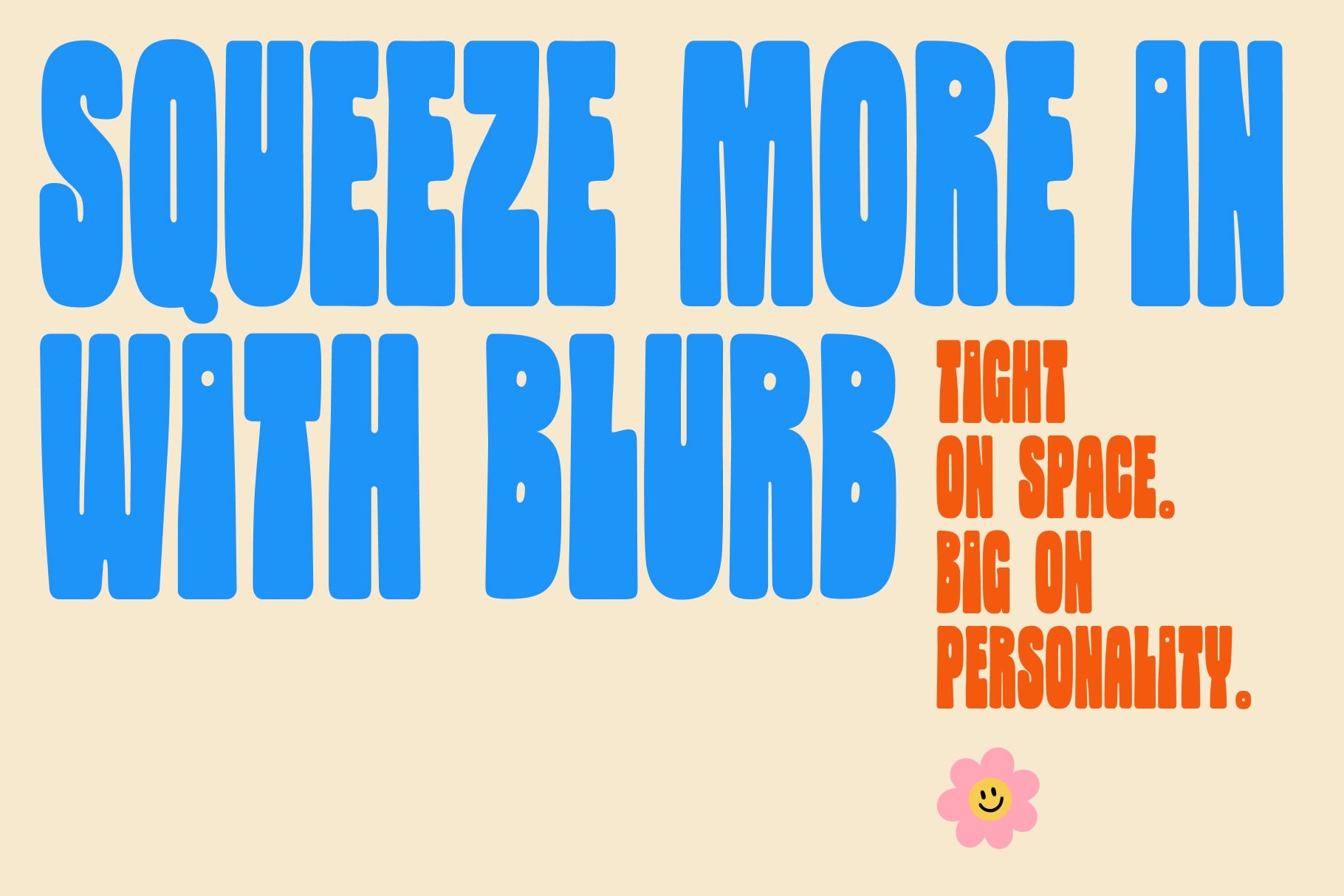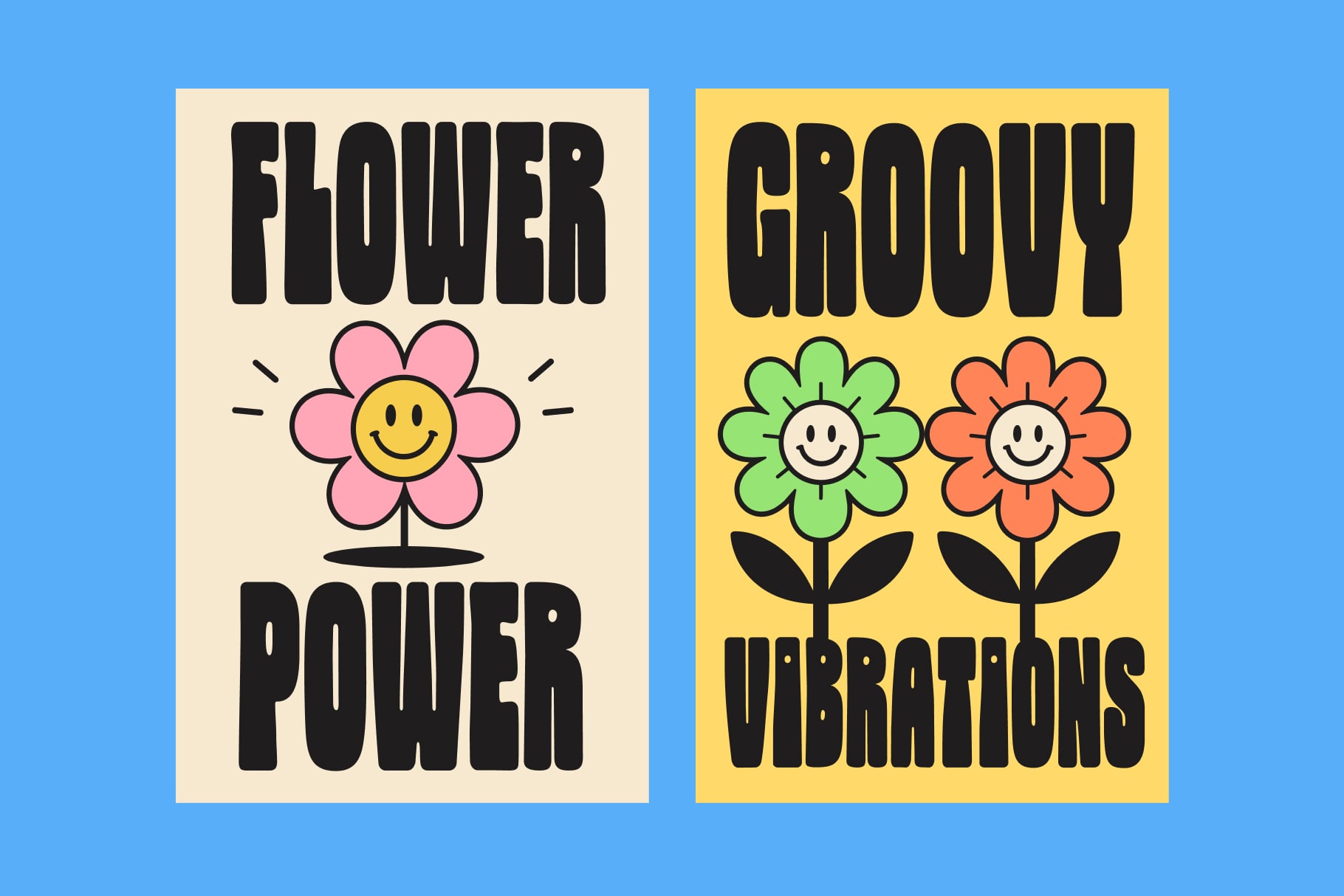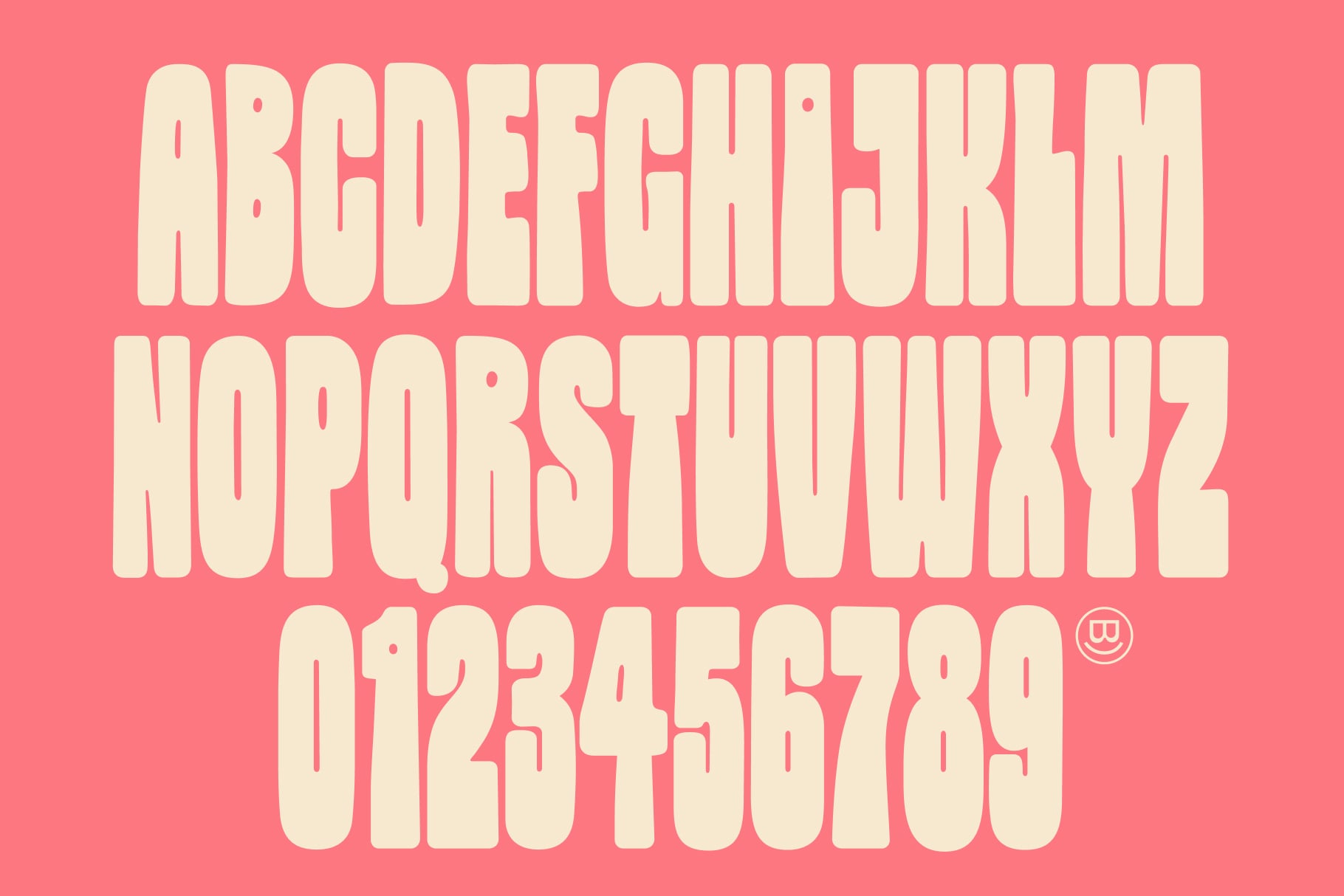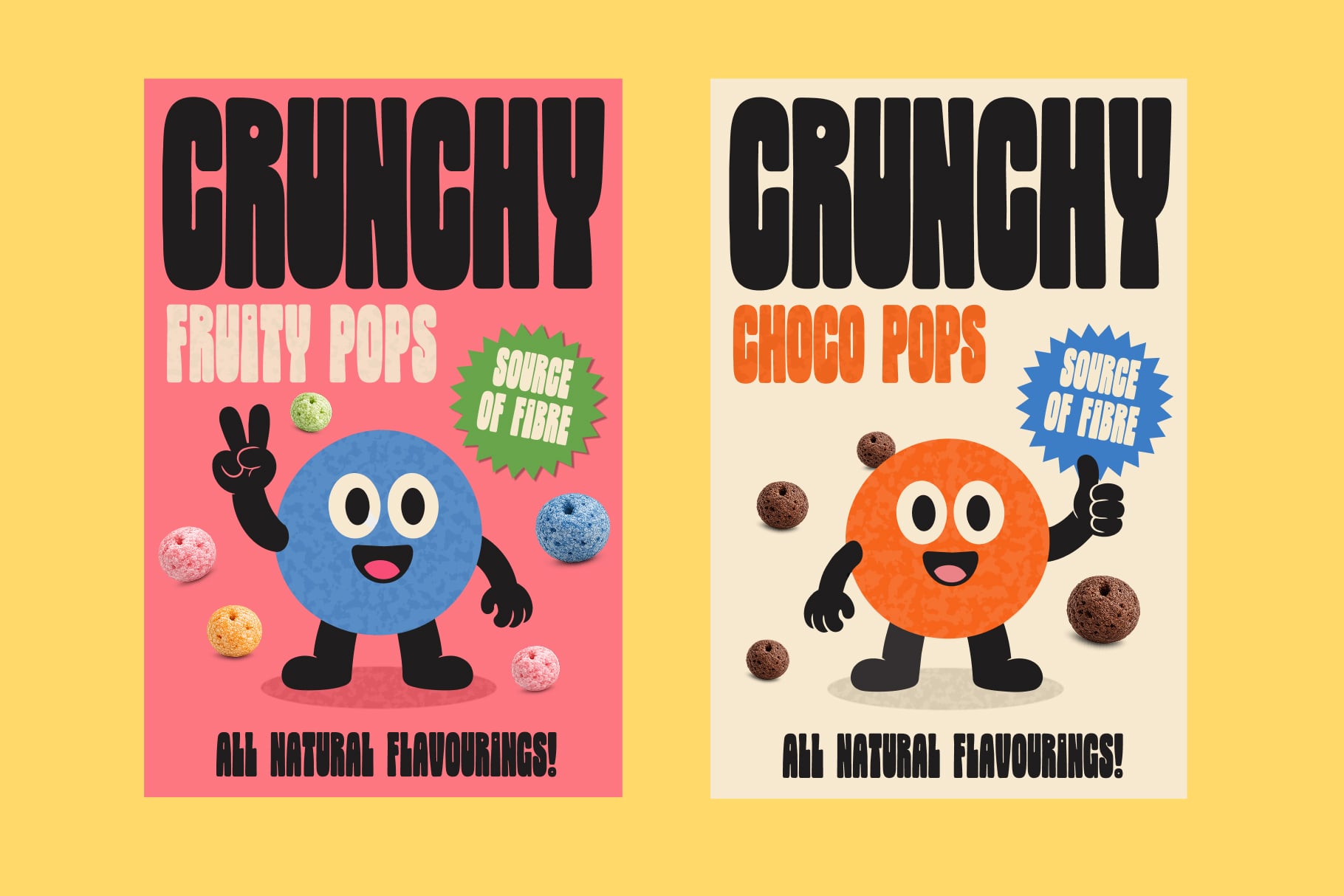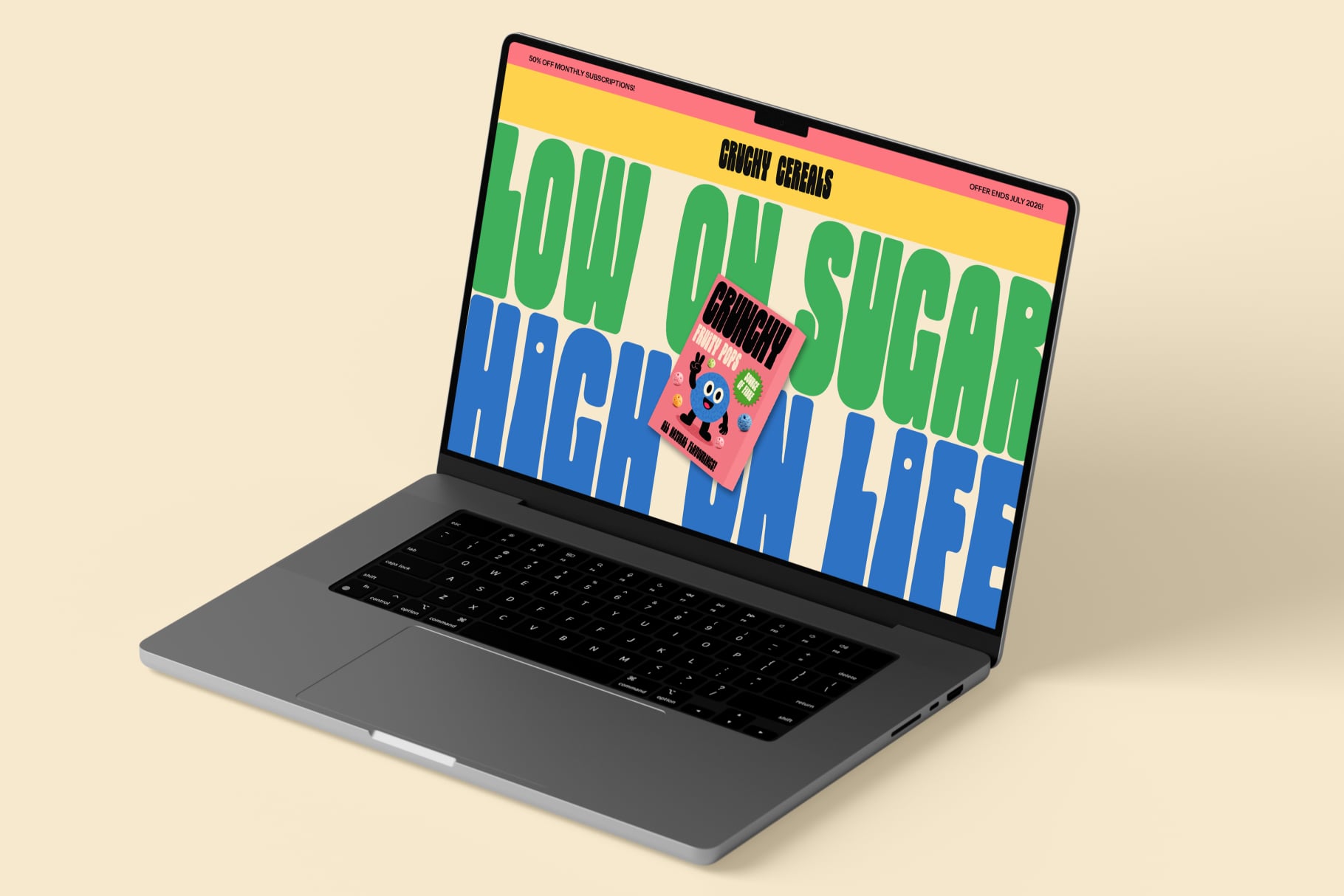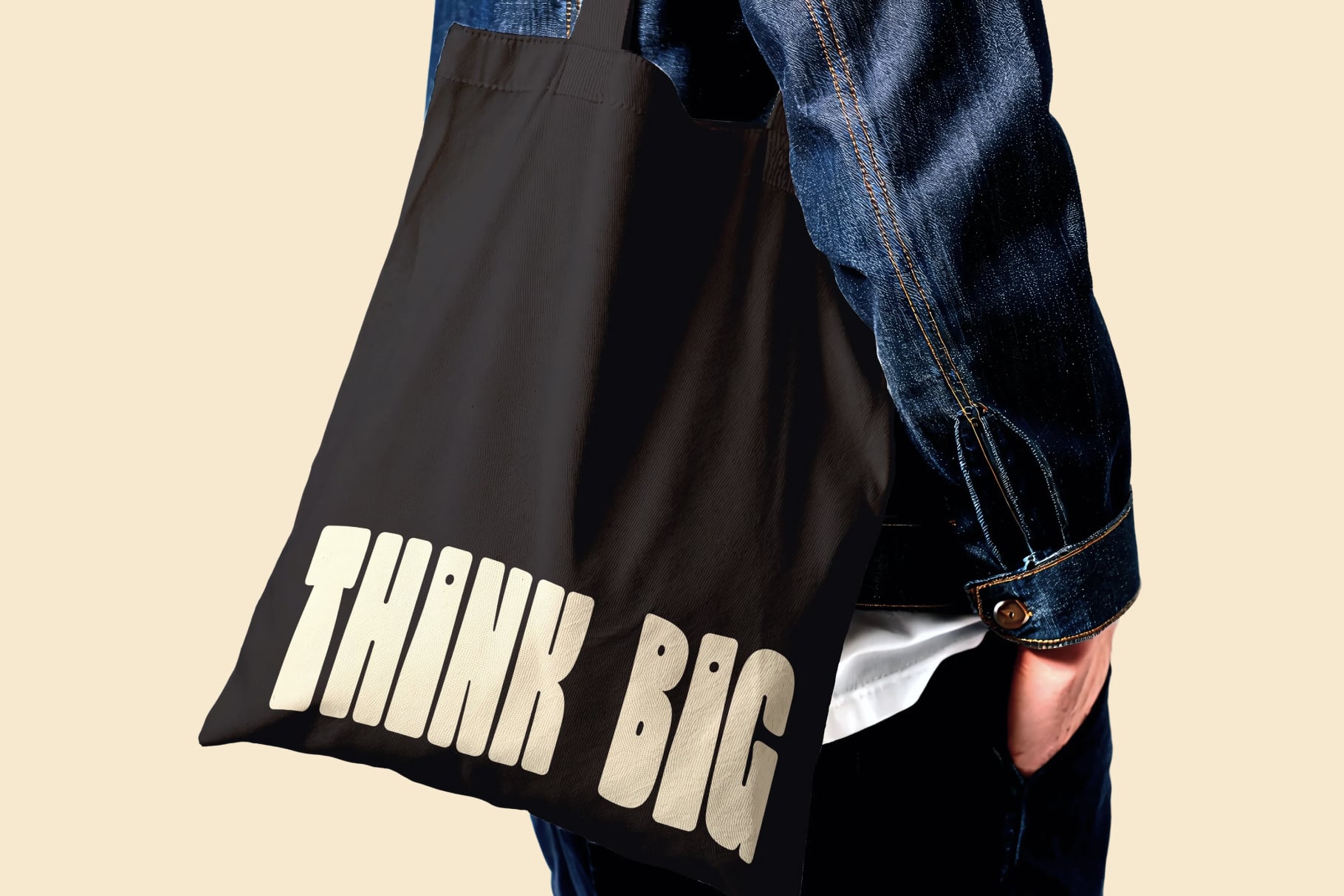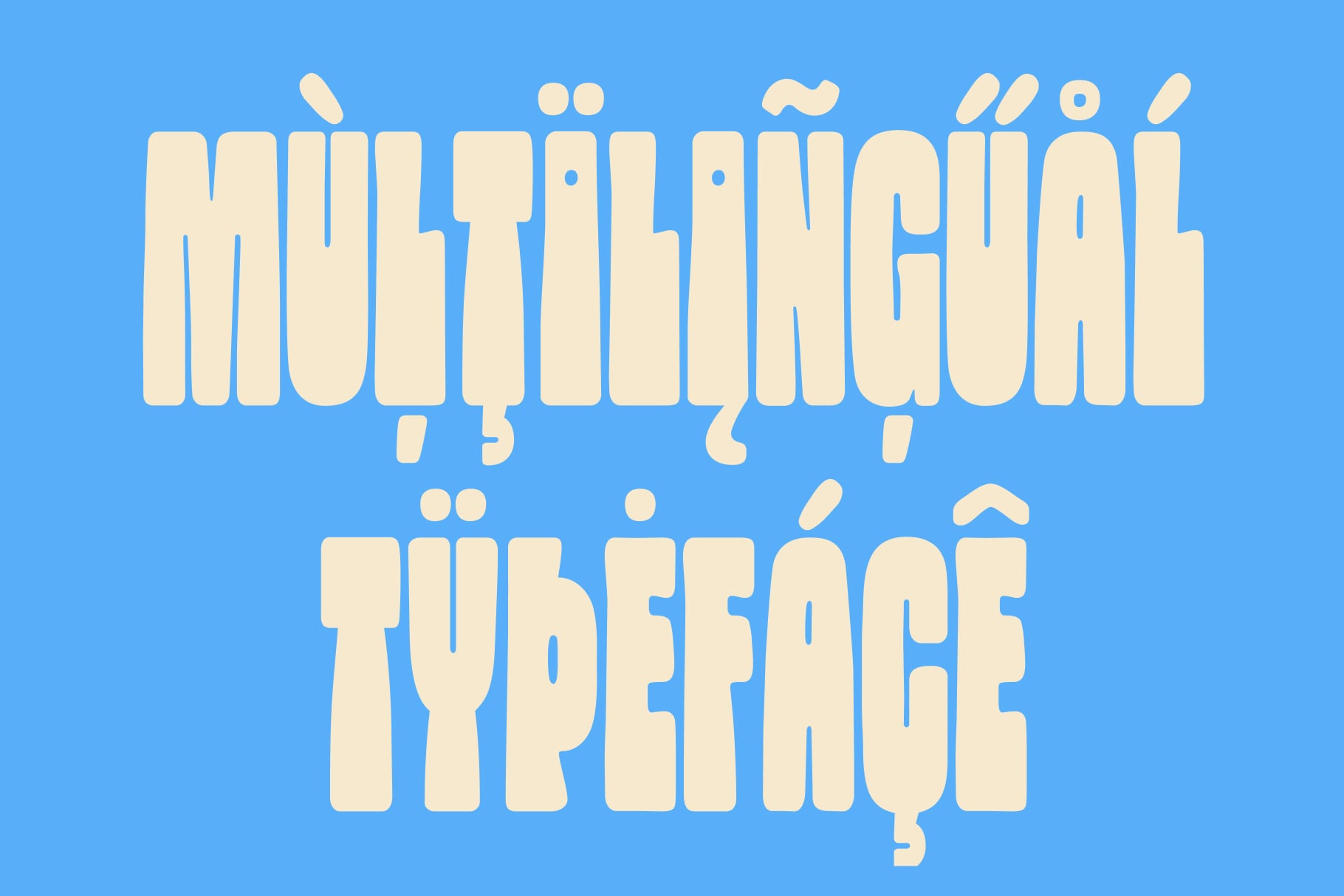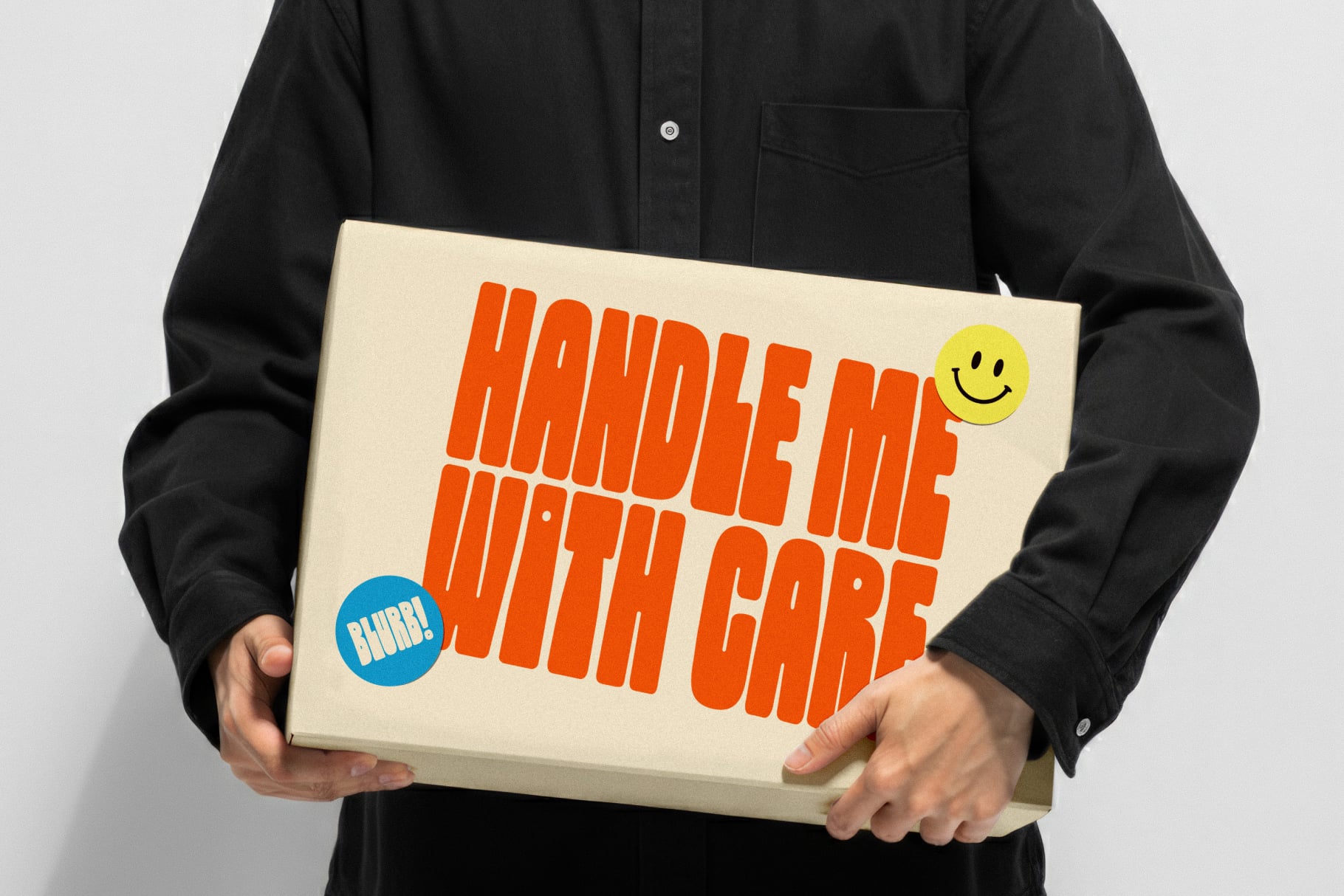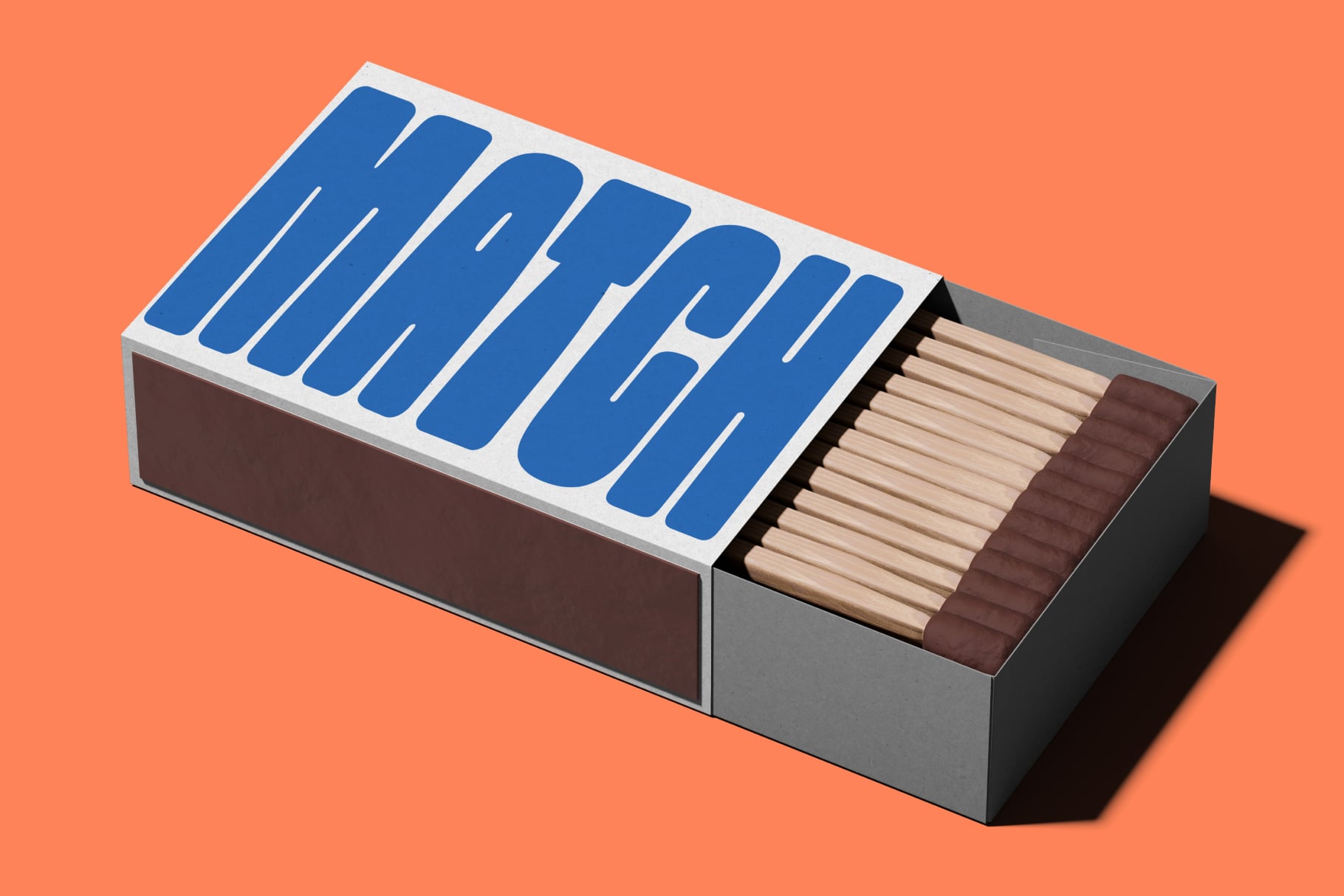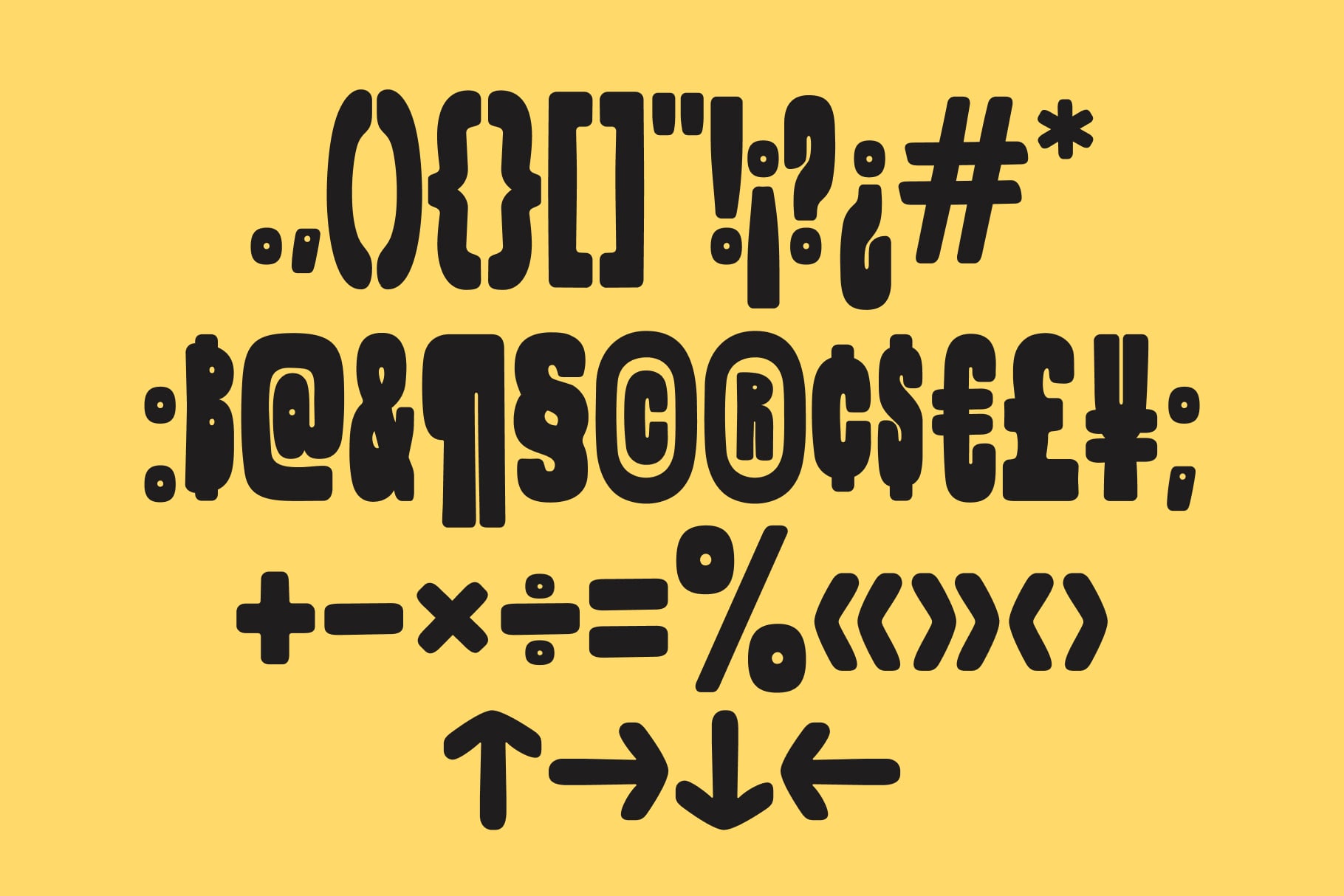
Blurb is a chunky condensed display font built for big statements and bold ideas.
Designed to maximise impact in minimal space, Blurb features tight spacing,..compact proportions, and a distinctive personality that allows headlines to feel large, confident, and attention-grabbing without overwhelming the layout. A tall, narrow, friendly, space saving, slightly off-kilter, groovy lil' condensed uppercase font that will add personality to any layout.
The letterforms balance playful character with clean construction, creating a display face that feels expressive, approachable, and highly usable across editorial design, posters, packaging, branding, merchandise, advertising, and social media graphics.
Whether you're filling a magazine spread, squeezing a headline onto packaging, creating a poster, or building a visual identity that needs immediate presence, Blurb is designed to make every word count.
Big type. Tight spaces. Bold impact.